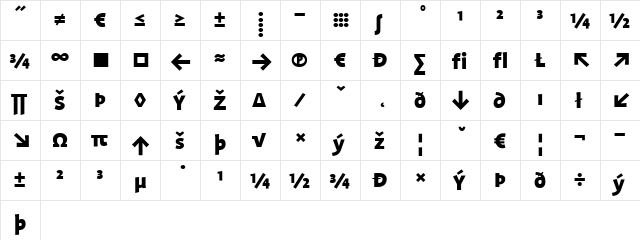
ProfileXP Black
Design Context for ProfileXP Typeface
ProfileXP takes a measured approach to typography — its balanced proportions and neutral character make it a reliable workhorse for both digital and print work.